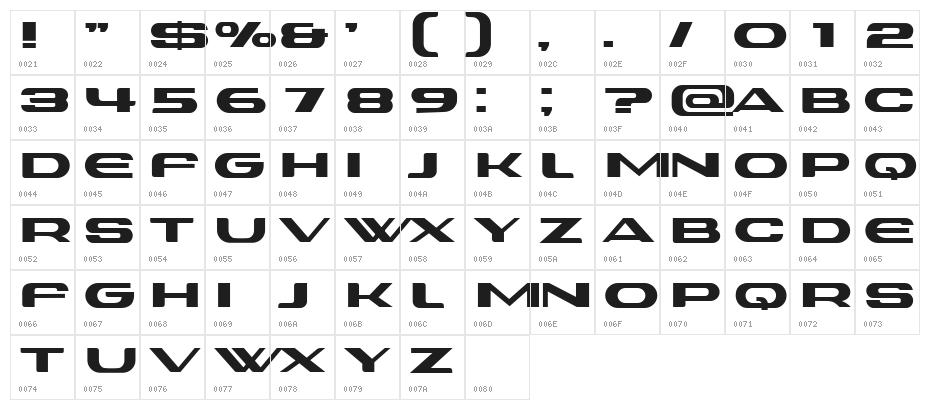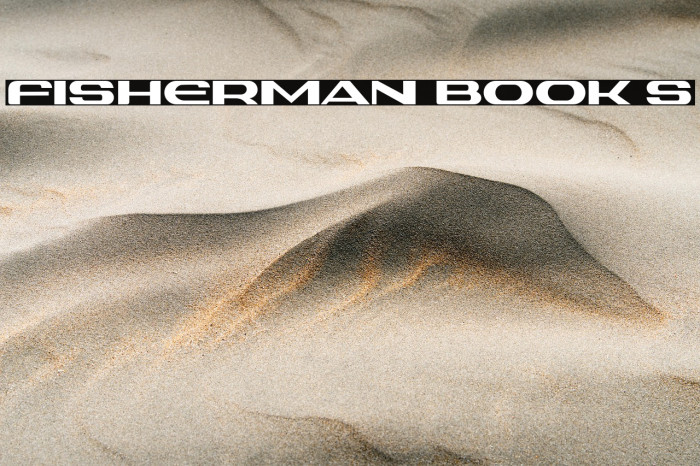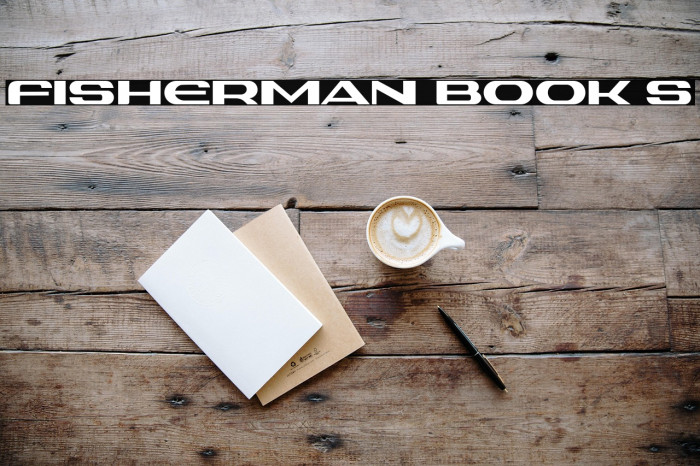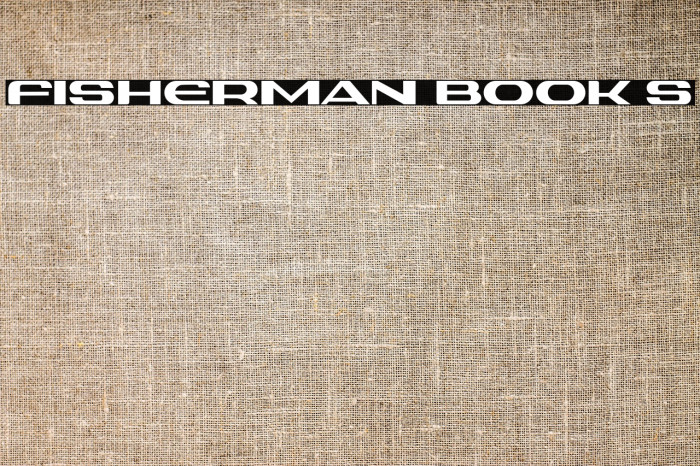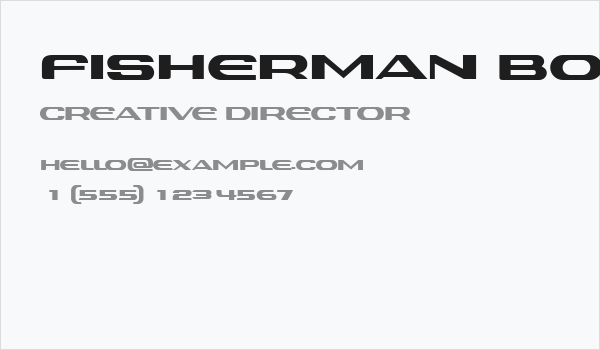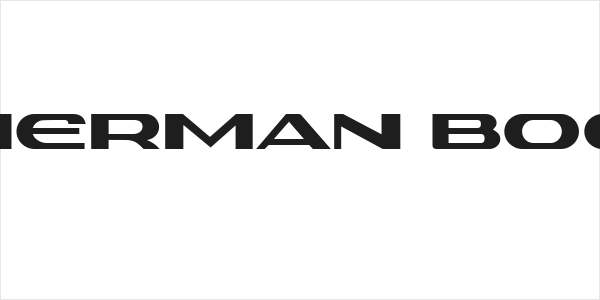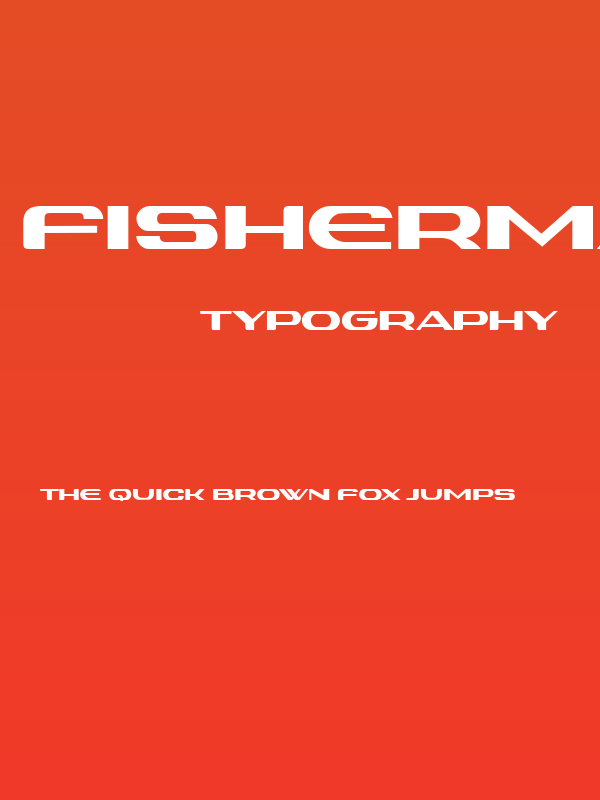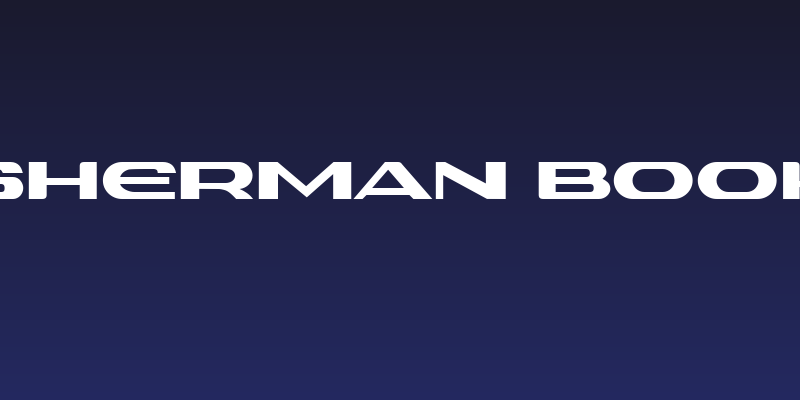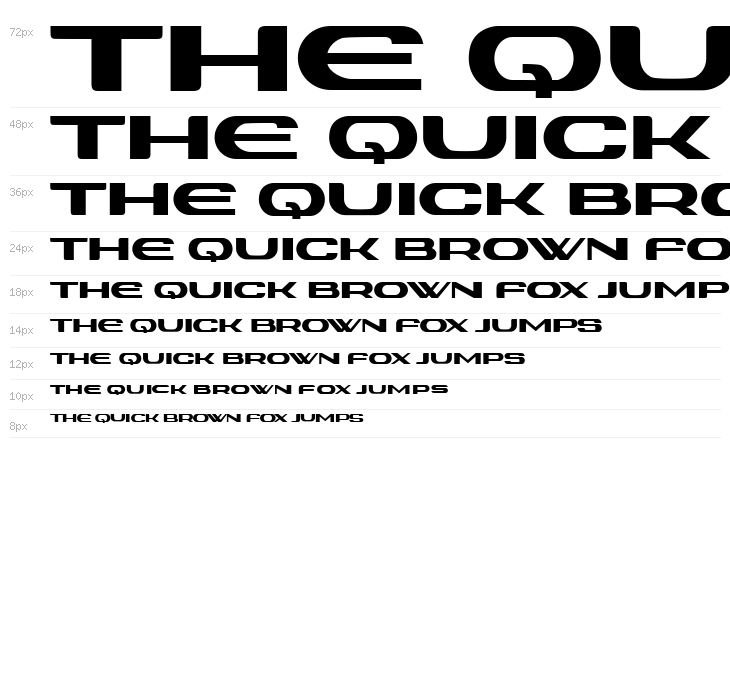
Fisherman Book S Font
Fisherman Book S Description
This font features a bold and modern design with a futuristic flair. The characters are wide and slightly condensed, giving a strong and impactful appearance. The uppercase letters have a distinct geometric style with sharp angles and clean lines, while the numbers and special characters maintain a consistent aesthetic. The overall look is sleek and contemporary, making it suitable for projects that require a bold statement. The font's unique style is ideal for branding, advertising, and digital media where a modern and assertive presence is desired.